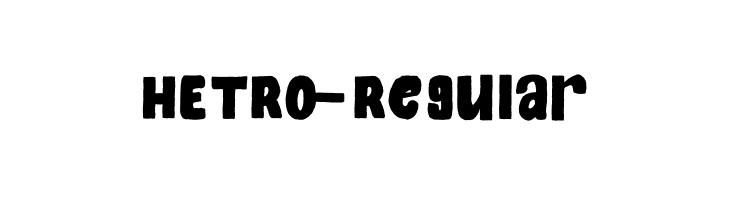
A bold, playful font with rounded edges and a hand-drawn feel.
A bold, playful font with a hand-drawn, casual style.
A playful, bold font with a hand-drawn, casual style.
A playful, hand-drawn font with bold, rounded characters and a whimsical style.
A bold, playful font with thick, uniform strokes and a dynamic appearance.